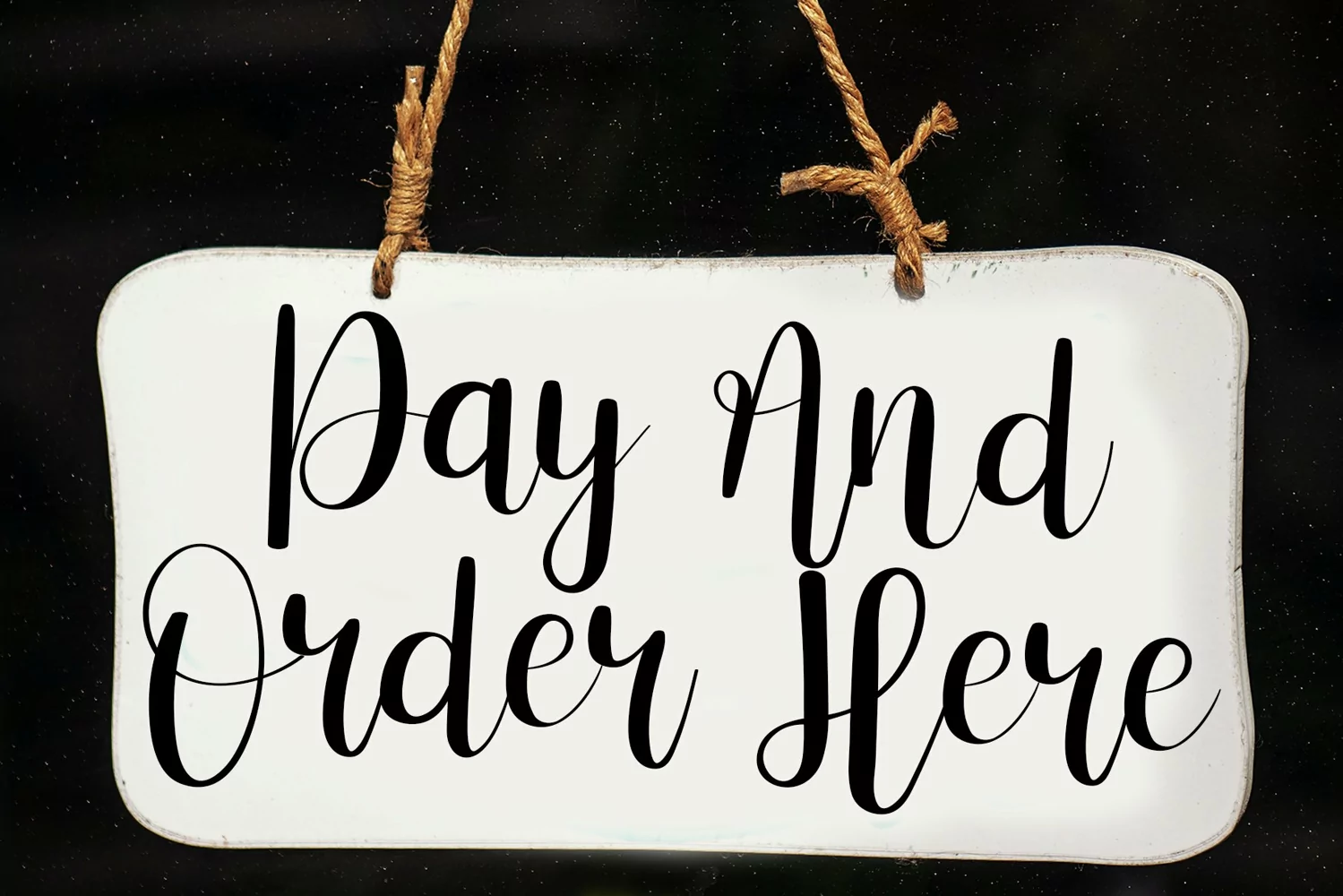
Romantic Heart
Introducing, this is our newest product, we call this product Romantic Heart,
It looks amazing with sweet touches and beautiful curves in each letter. Romantic Heart fonts are perfect for: wedding invitations, fashion magazines, logos, signatures, photography, watermarks, wall displays, social media,